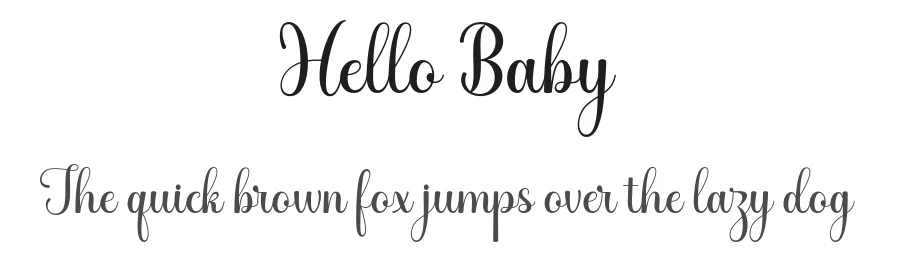
About Billiards Font
Billiards Specifications
| Font Family | Billiards |
| Full Name | Billiards |
| Glyph Count | 120 glyphs |
| PostScript Name | BilliardsRegular |
Billiards ships with 1 OpenType feature you can switch on in apps that support them (Illustrator, InDesign, Affinity, Figma, CSS font-feature-settings).
Billiards supports 198 languages.
Billiards Font is a script font that shines as a display or heading face. Pair it with a clean sans-serif or serif font for body text β the contrast creates a clear hierarchy while the two styles stay balanced and easy to read.
Billiards Font